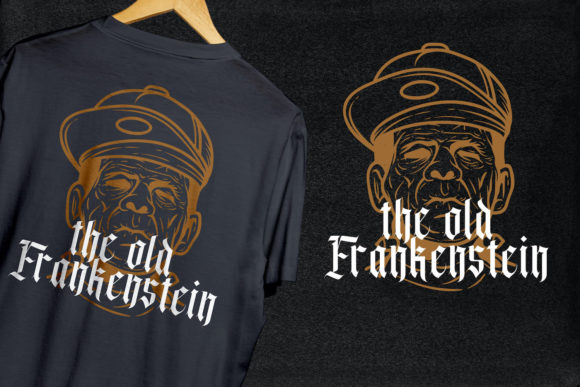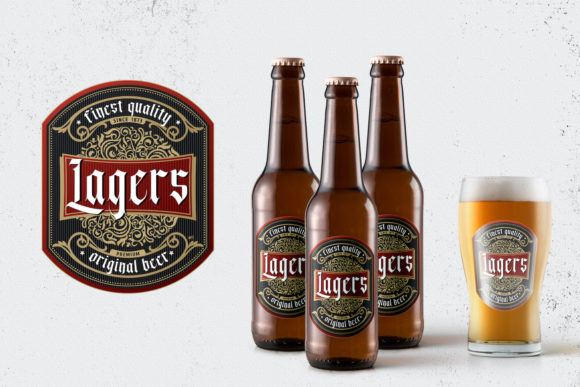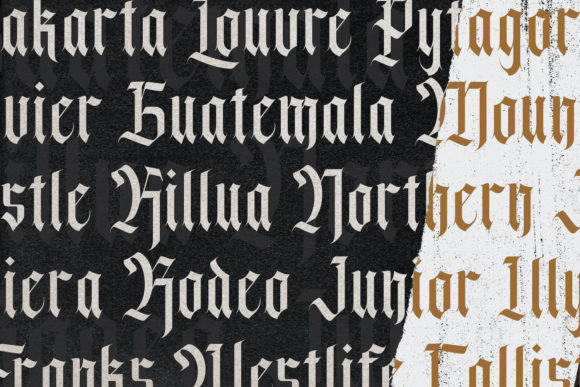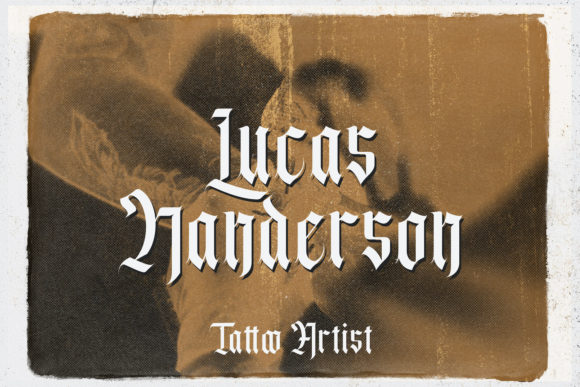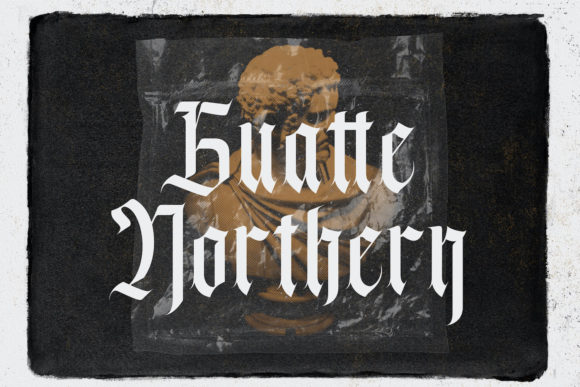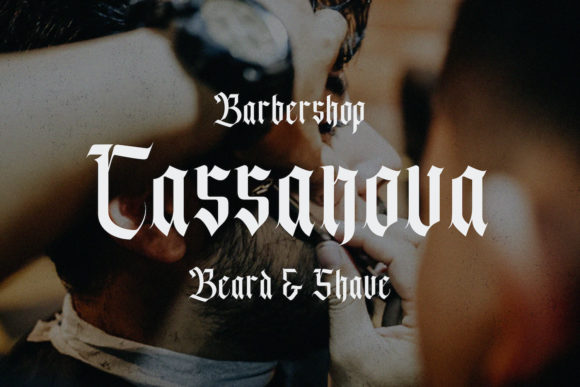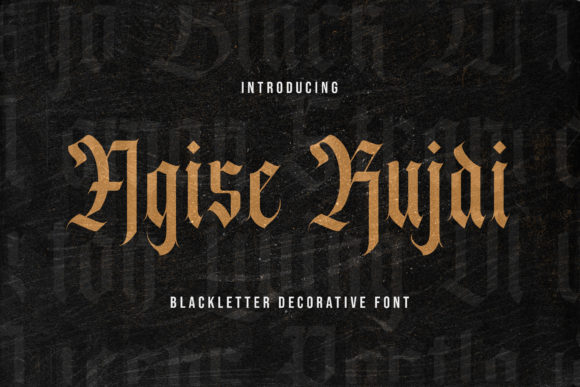
Unleash Your Creativity with Agise Rujdi: The Authentic Blackletter Font
Are you tired of using the same old fonts for your creative projects? Look no further! Agise Rujdi is an incredibly authentic and daring blackletter font that’s sure to make your designs stand out. In this article, we’ll dive into the world of Agise Rujdi, exploring its unique features, and how it can elevate your creative ideas.
What is Agise Rujdi?
Agise Rujdi is a blackletter font that exudes a sense of boldness and authenticity. Its unique design is inspired by traditional blackletter typography, with intricate details and ornate flourishes. This font is perfect for designers and crafters looking to add a touch of edginess to their work.
Key Features of Agise Rujdi
- Authentic Blackletter Design: Agise Rujdi boasts an authentic blackletter design that’s sure to transport your designs back in time.
- Daring and Bold: This font is not for the faint of heart! Agise Rujdi is bold, daring, and makes a statement.
- Intricate Details: With intricate details and ornate flourishes, Agise Rujdi is the perfect font for those who appreciate the art of typography.
- Versatile: Whether you’re working on a logo, poster, or packaging design, Agise Rujdi can be used for a wide range of creative projects.
How to Use Agise Rujdi in Your Designs
So, how can you incorporate Agise Rujdi into your designs? Here are a few ideas to get you started:
- Logos and Branding: Use Agise Rujdi to create a bold and memorable logo that sets your brand apart.
- Posters and Flyers: Add a touch of edginess to your posters and flyers with Agise Rujdi’s unique design.
- Packaging Design: Make your packaging design stand out with Agise Rujdi’s bold and daring typography.
- Digital Art: Use Agise Rujdi to add a touch of authenticity to your digital art pieces.
Tips and Tricks for Working with Agise Rujdi
Here are a few tips and tricks to keep in mind when working with Agise Rujdi:
- Experiment with Font Sizes: Agise Rujdi looks great in large font sizes, but don’t be afraid to experiment with smaller sizes to create visual interest.
- Pair with Other Fonts: Pair Agise Rujdi with other fonts to create a unique and visually appealing typography combination.
- Play with Colors: Agise Rujdi looks great in bold colors, but don’t be afraid to experiment with different colors to create a unique look.
In conclusion, Agise Rujdi is an incredibly authentic and daring blackletter font that’s sure to make your designs stand out. With its unique features, versatility, and bold design, Agise Rujdi is the perfect addition to your creative toolkit. So why wait? Add Agise Rujdi to your favorite creative ideas and notice how it makes them stand out!